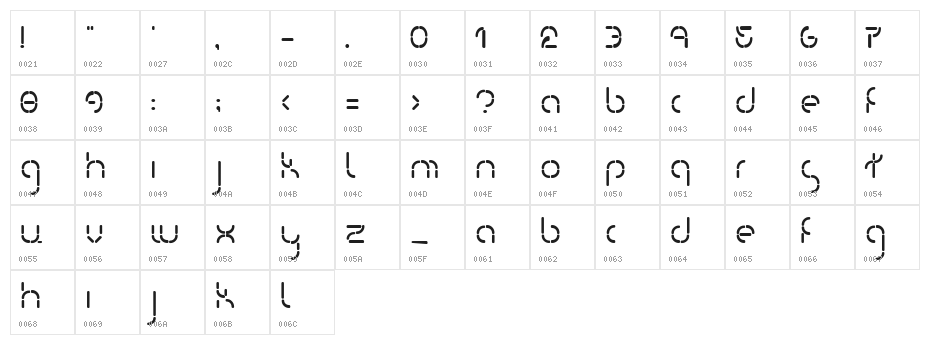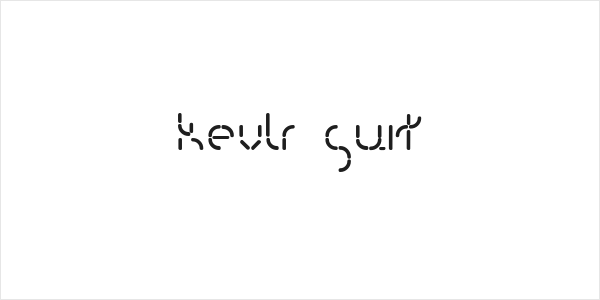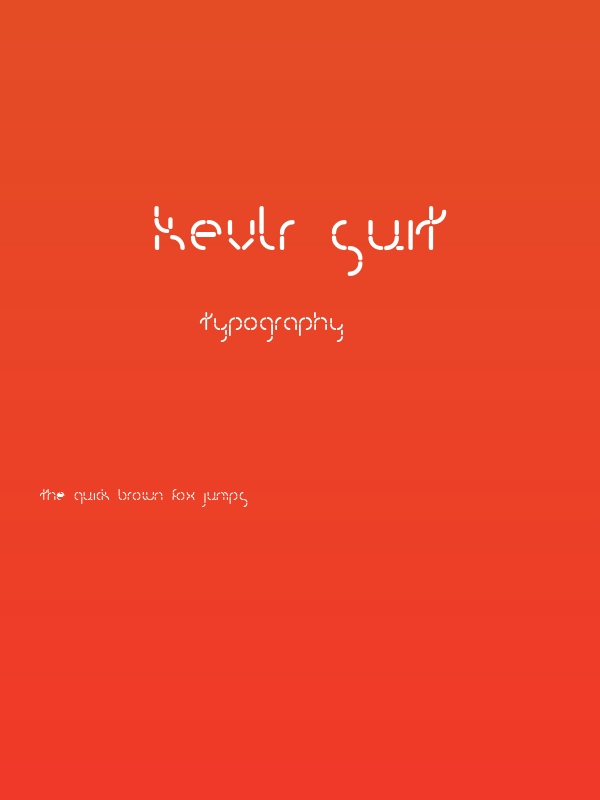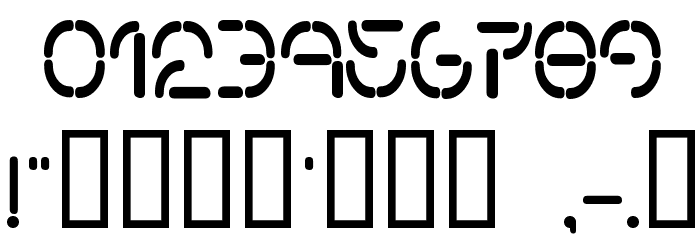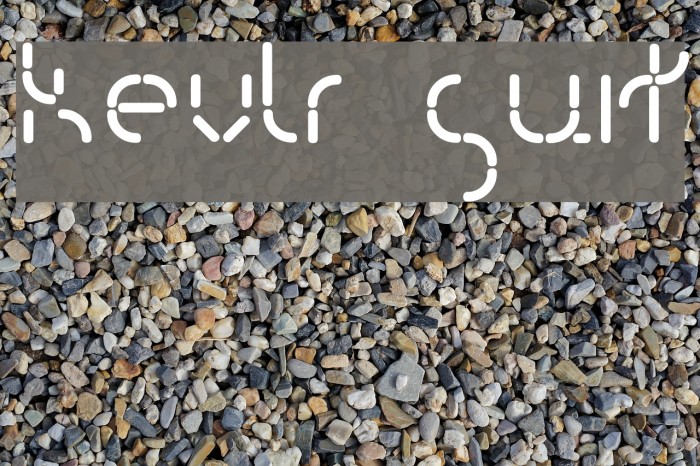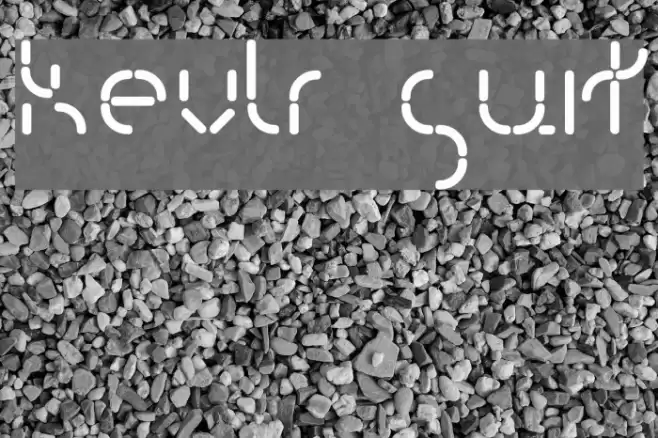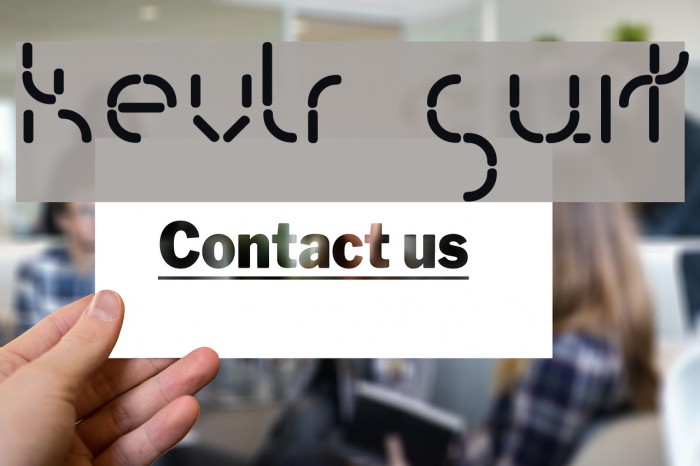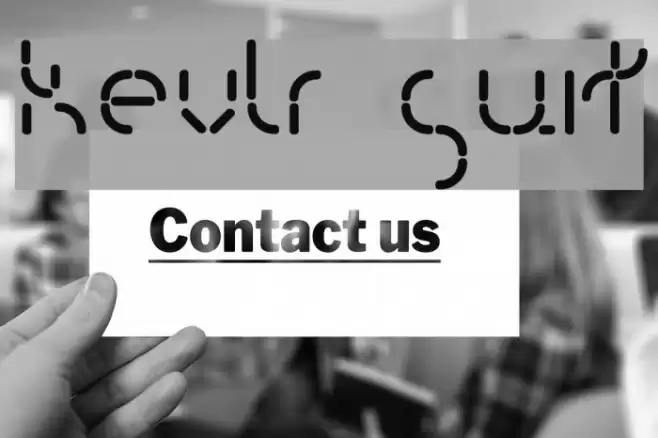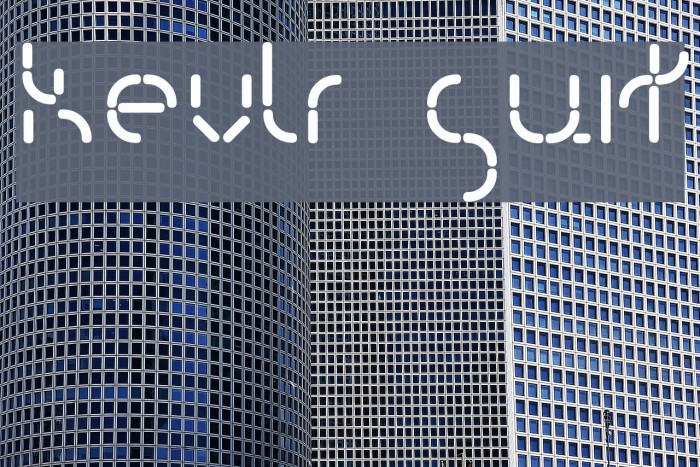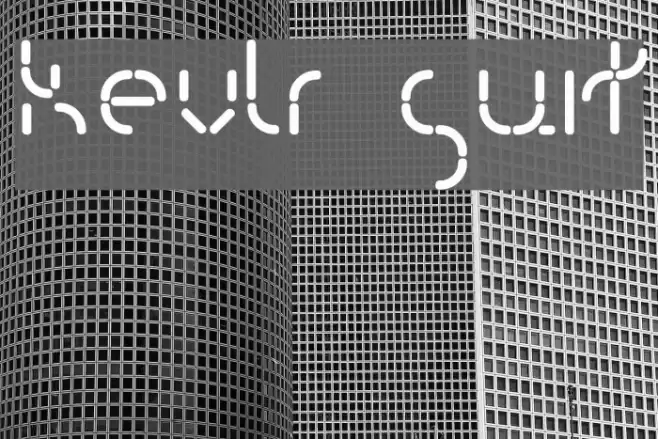
Kevlr Suit Font
Kevlr Suit Description
This font features a futuristic and geometric design, characterized by its segmented and modular appearance. Each character is composed of distinct, rounded segments that create a digital and mechanical aesthetic. The uniformity in the design gives it a cohesive and modern look, while the open spaces within the characters add a sense of lightness and readability. The font maintains a consistent stroke width throughout, contributing to its clean and structured appearance. The unique style is both eye-catching and functional, making it suitable for various creative applications.
| Use Case | Logos, Headlines, Posters |
| Proposed Projects | Ideal for technology branding, sci-fi movie posters, video game interfaces, and modern digital art projects. |